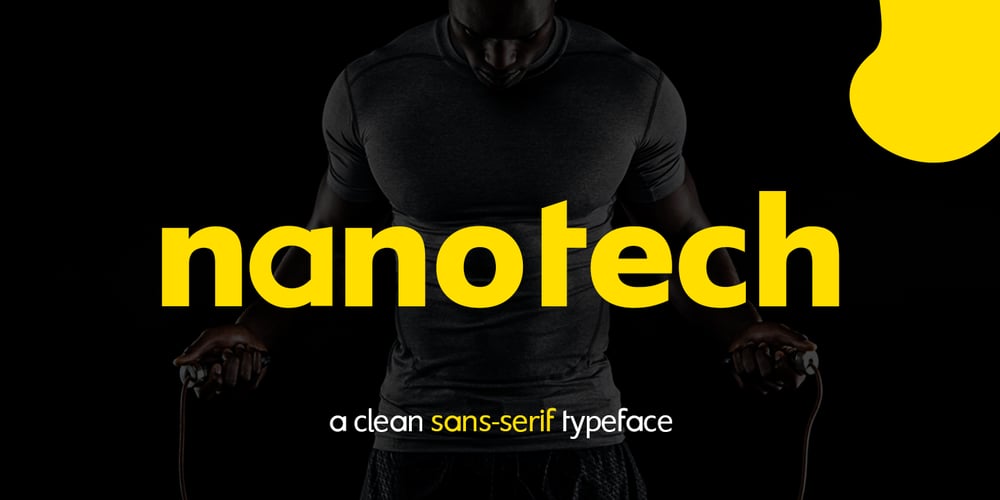
Nanotech
Nanotech font
Nanotech Font Family was designed by Afotey Clement Nii Odai and published by VType. Nanotech contains 4 styles and family package options. Nanotech is a clean sans-serif font with a strong visual impact. This font is perfect for logos, business cards, magazine layouts, headers, product design, large-scale artwork and more.